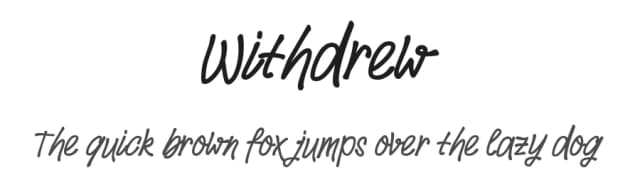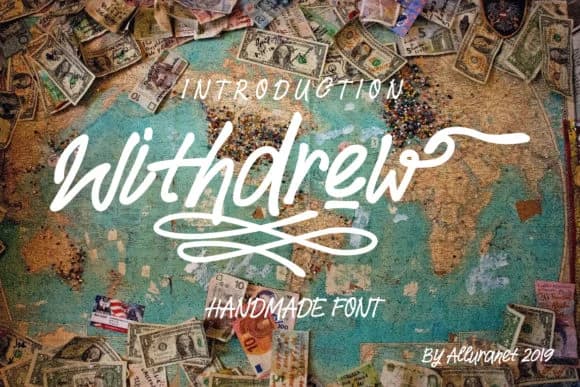
1 / 9About Withdrew Font
Imagine you're creating a set of thank-you cards for a boutique wedding or a bundle of personalized gift tags that actually feel like they came from someone's hand. Withdrew, designed by Arip Santoso, is a handwritten script that captures that genuine personal feeling without looking overly formal or precious. The letterforms have a natural, unstudied flow that works equally well at small sizes on greeting cards or scaled up for coffee shop signage and menu boards.
This font excels in contexts where human warmth matters most. Handwritten product labels for indie sellers, bullet journal spreads, and custom stationery sets all benefit from its relaxed, organic character. The hand-drawn quality reads as intentional rather than careless, which makes it suited for work that needs genuine personality but still needs to be taken seriously. You can apply it to thank-you card suites, Instagram story graphics, custom invitations, or even personal branding that stands out. Withdrew maintains strong legibility without sacrificing its relaxed feel across different applications and sizes.
The script performs equally well when printed large on signage or reduced for smaller text-based designs. For anyone wanting to add a human touch to their work without relying on generic scripts, this is the font to grab. Find Withdrew on Creative Fabrica and discover how authentic handwriting can transform your designs.
Withdrew Font is a script font that shines as a display or heading face. Pair it with a clean sans-serif or serif font for body text β the contrast creates a clear hierarchy while the two styles stay balanced and easy to read.
Withdrew Font
by Arip Santoso